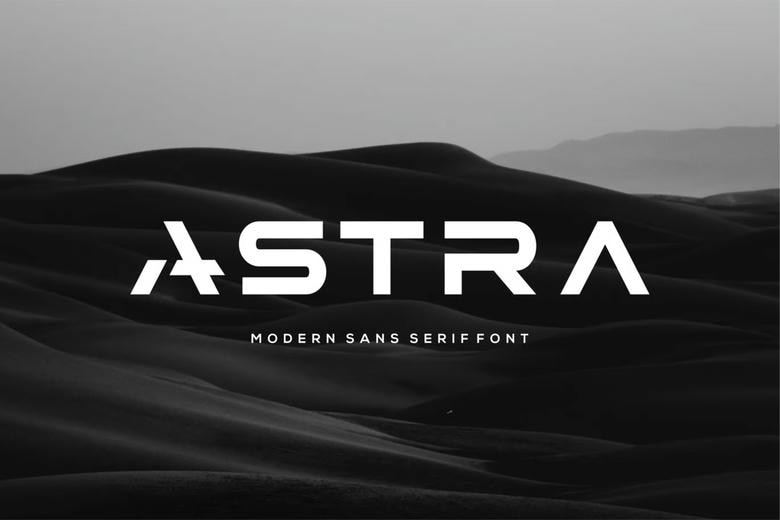
Astra Sans Font
Astra is a futuristic and modern typeface that is a sans serif to provide a clean, sharp and professional appearance to your projects. Its sharp lines, no sharp angles, and geometric shapes make it an ultra-futuristic style that is just a perfect match with tech-based, digital-based, and innovative branding.
Astra is created to be versatile and it works very well in logos, headlines, posters, UI design and websites. Its proportional typesetters have good readability at any size – perfect in a large title and small interface type.
The delineation of the stroke and elegant typeface of its uppercase makes Astra powerful but minimalistic. It is an ideal product branding, advertisement, packaging and contemporary digital layout. It also combines easily with basic or beautiful serifs companions.